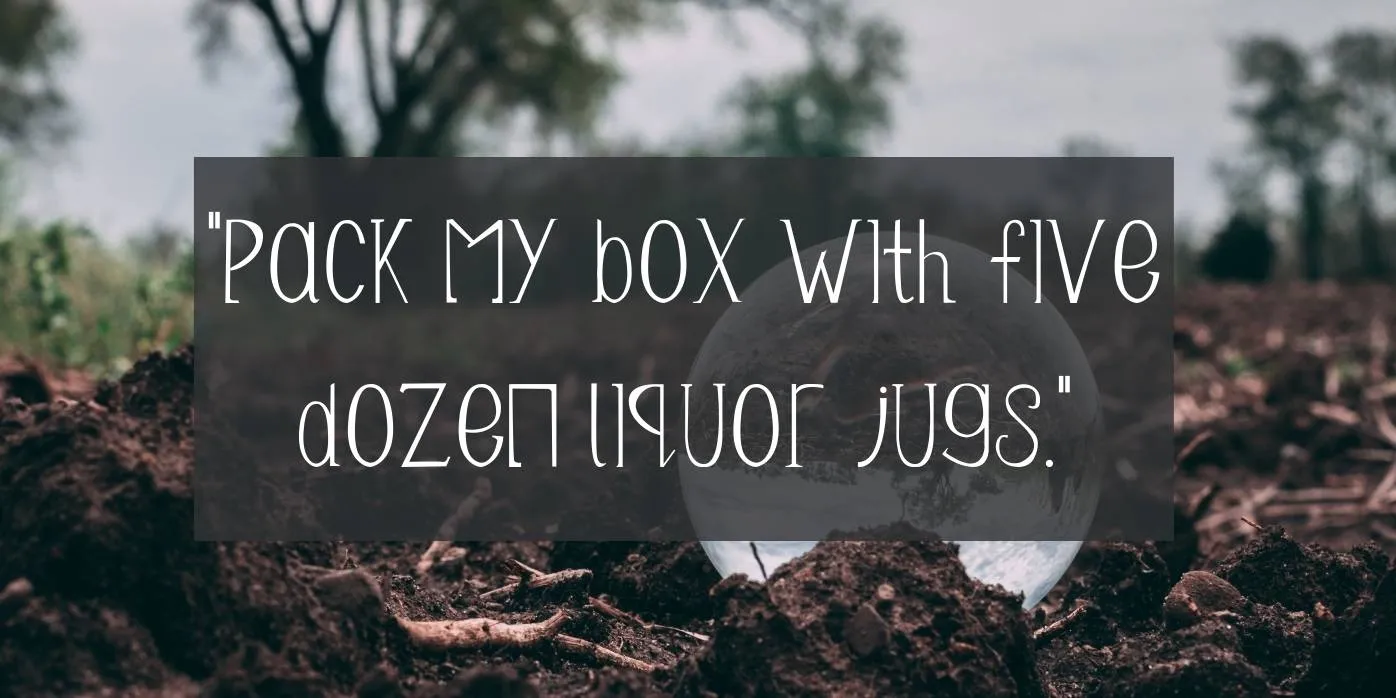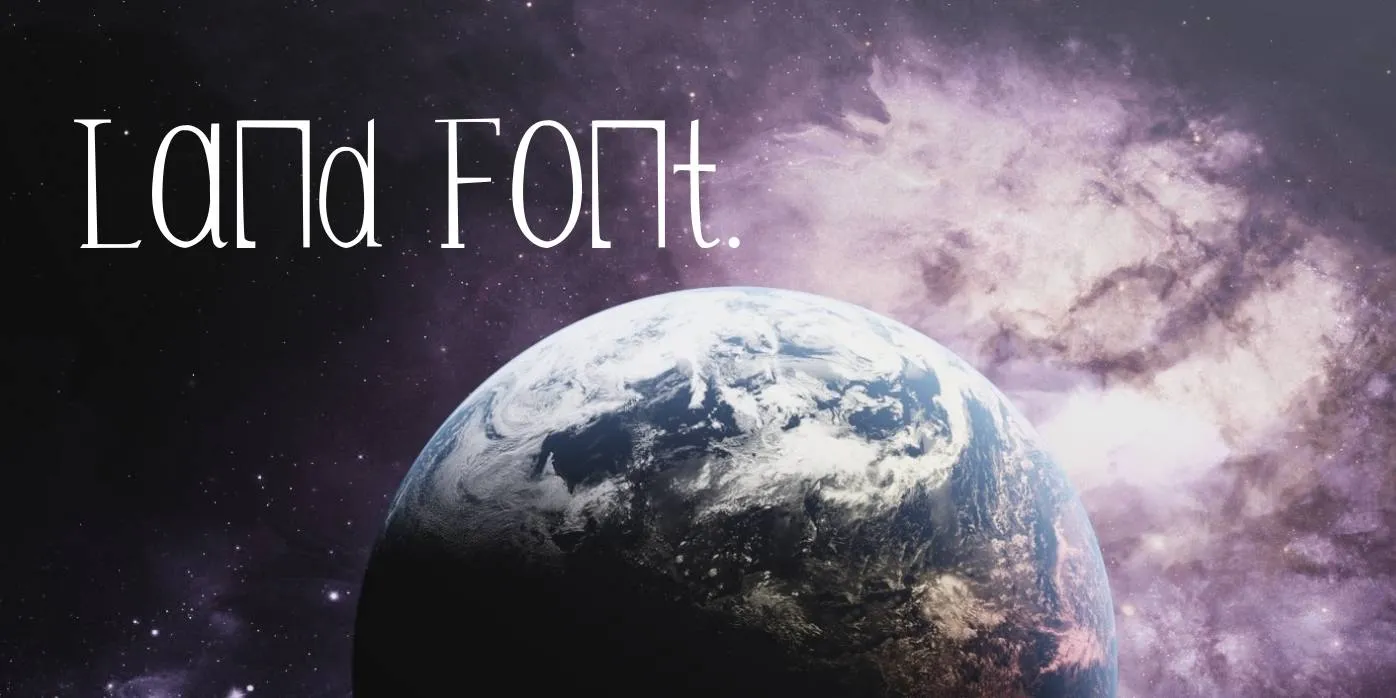
Land Font
Today, we present a staggering and astonishing font family that is known as Land Font. This marvelous font family belongs to the Display typeface. This classy font family was designed by very intelligent and brilliant designer Amy Cox. This awesome font is best for both upercase and lowercase like Mono-Alphabet font.
This fascinating font family is available in a variety of characters. These unique characters make your projects beautiful and perfect. Some of the important and famous characters are numbers, punctuations, symbols, Numerals, and many others Freshman Font is most similar to this amazing font family and it helps in different designing fields. Frequently this cozy font family is best for various headlines, titles, and logos.